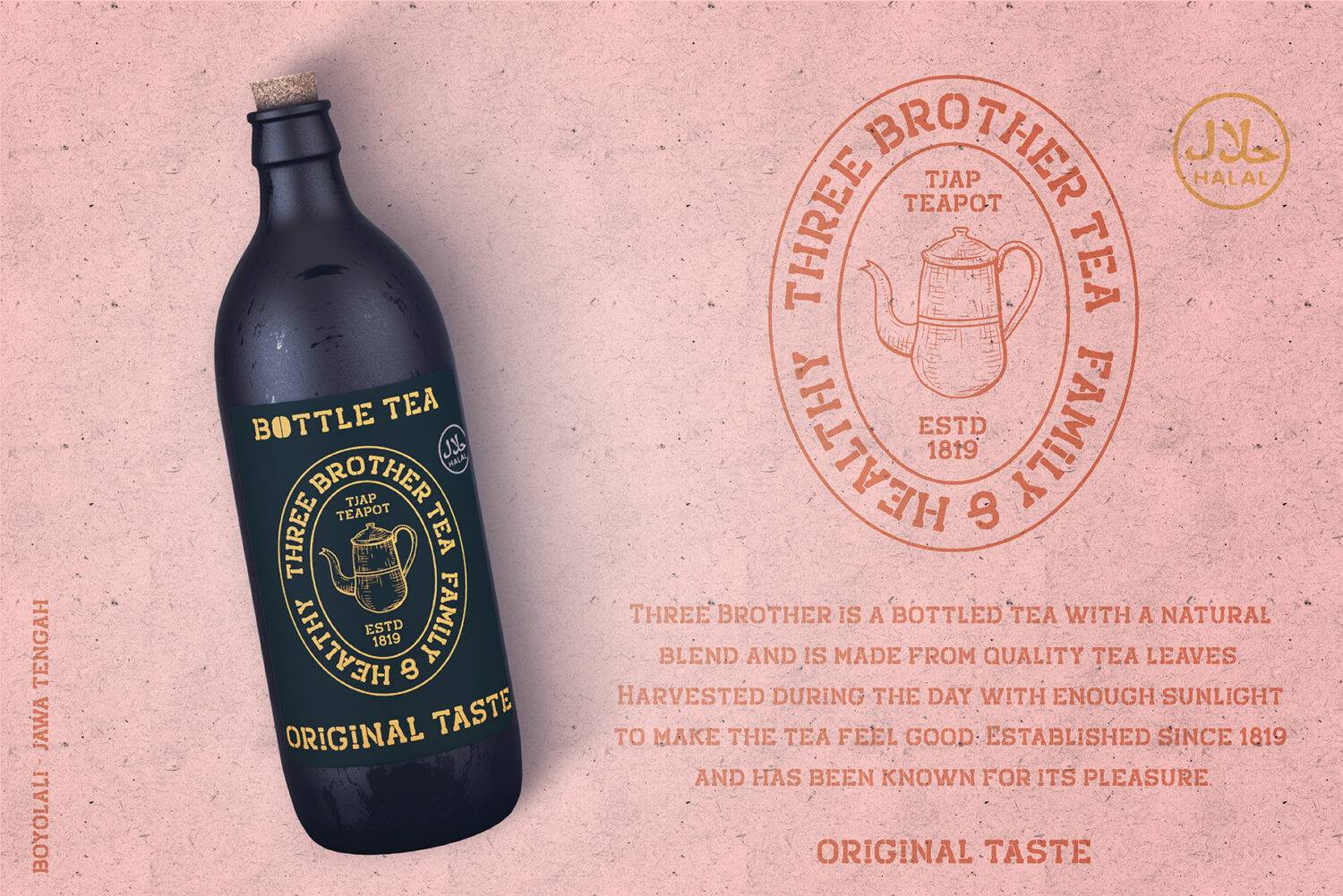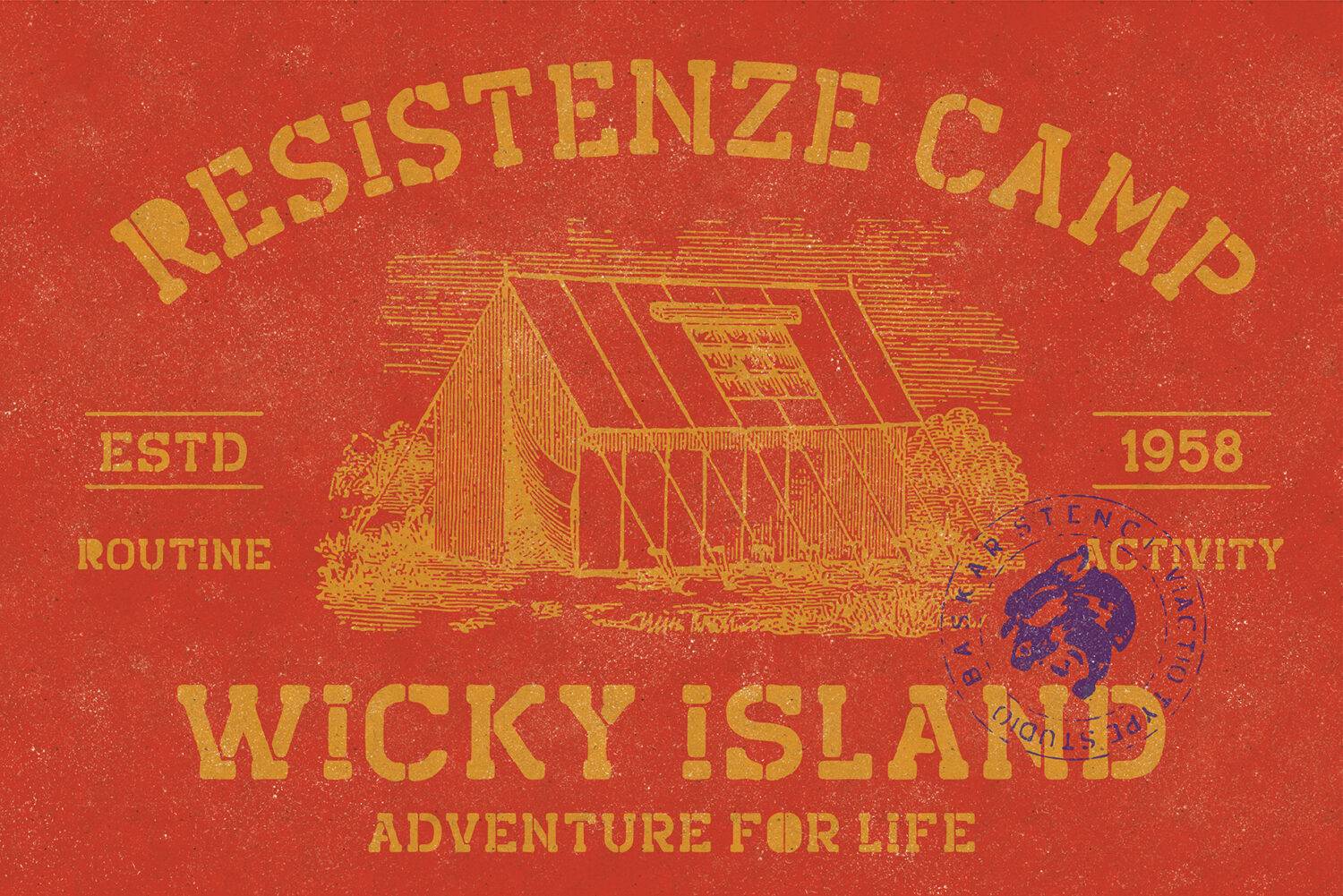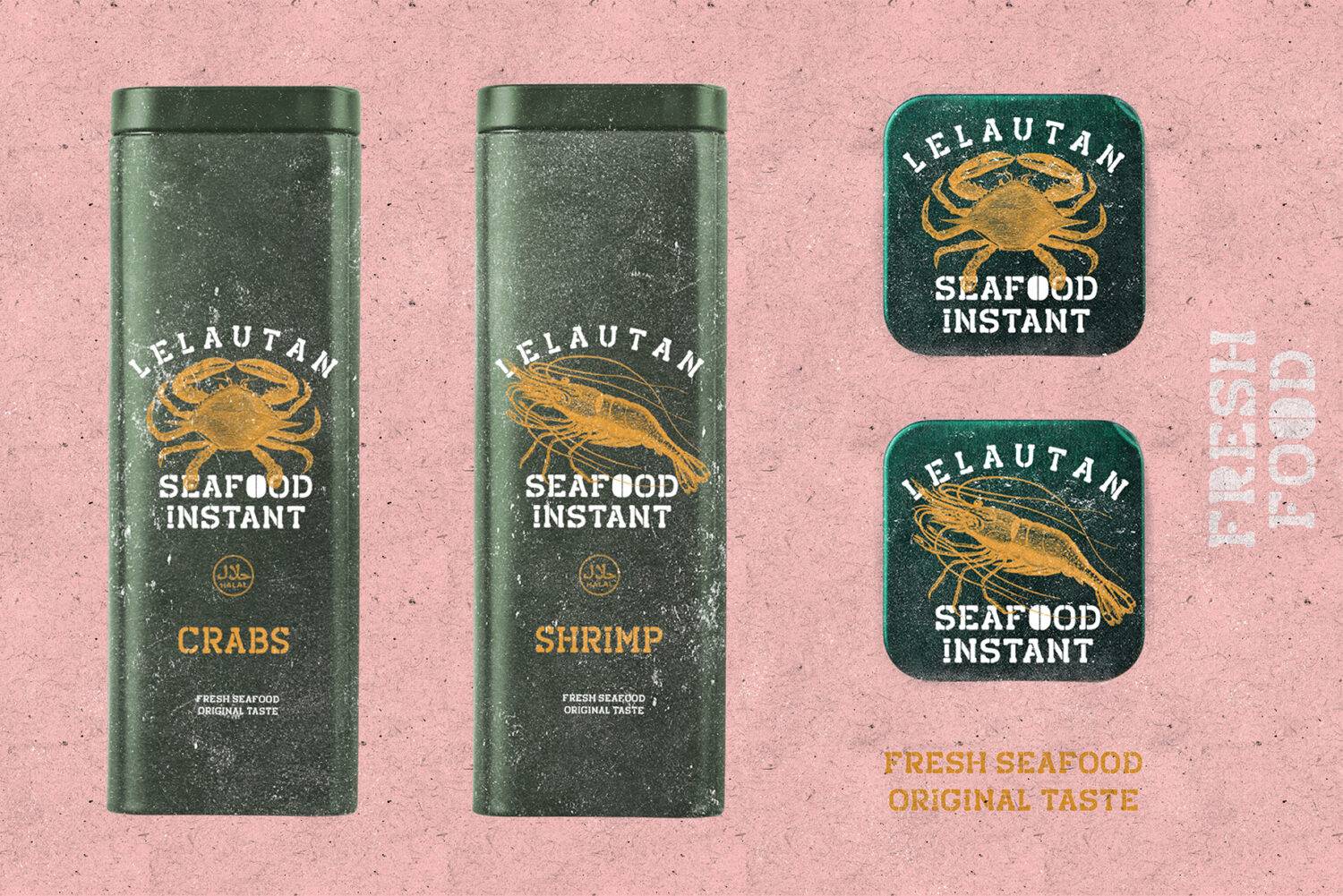
Baskar is a bold slab serif font with a strong, industrial character that combines sturdy, block-like shapes with slightly softened edges, giving it a vintage and rugged feel. Its uppercase-only design and uniform stroke contrast make it ideal for impactful headlines, logos, and branding that need a confident, distinctive presence with a hint of nostalgia. This font works especially well for packaging, posters, and editorial use where boldness and clarity are essential.
Baskar Font
About Baskar Font
| Font family | Baskar Font |
| Release date | 2018-09-25 |
| Designer | Lukman Hidayat "Viaction Type Co" |